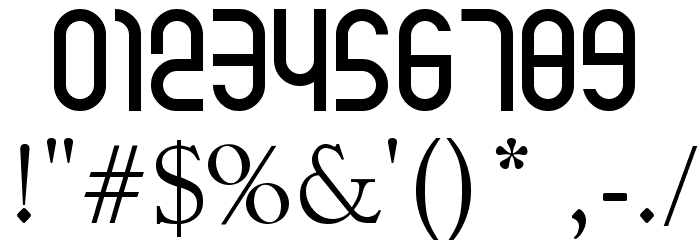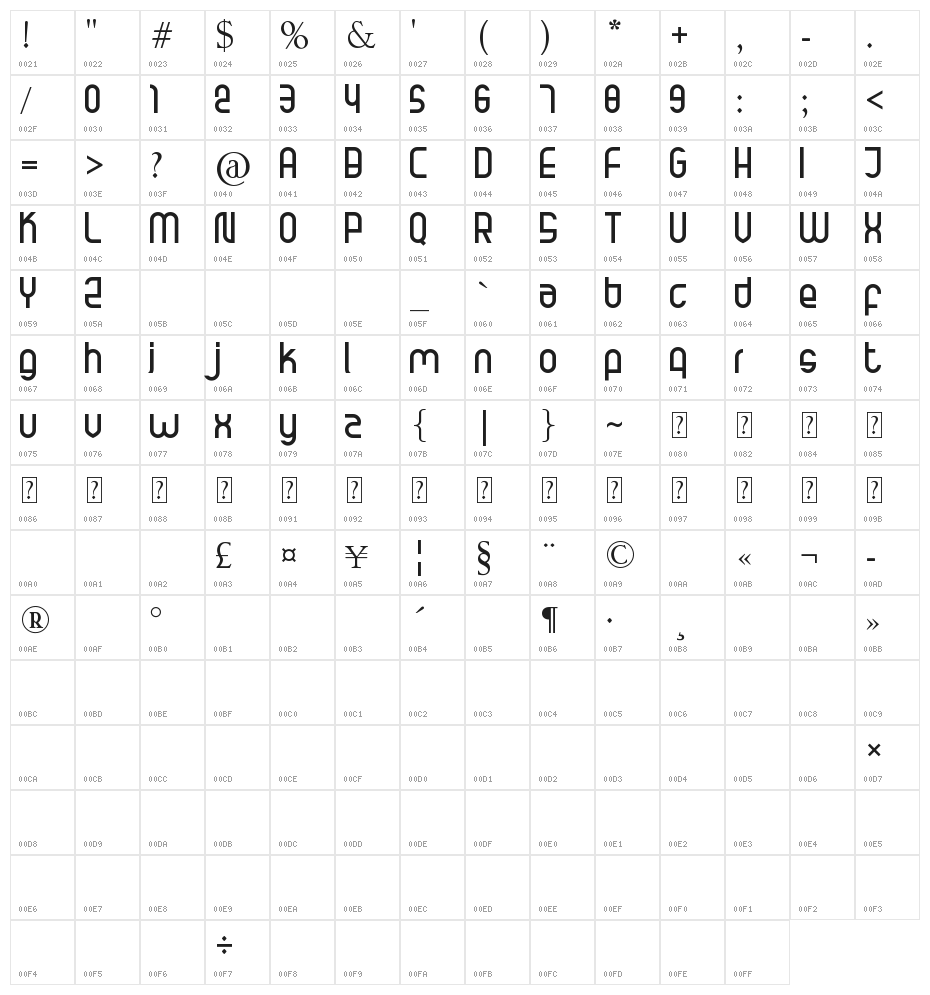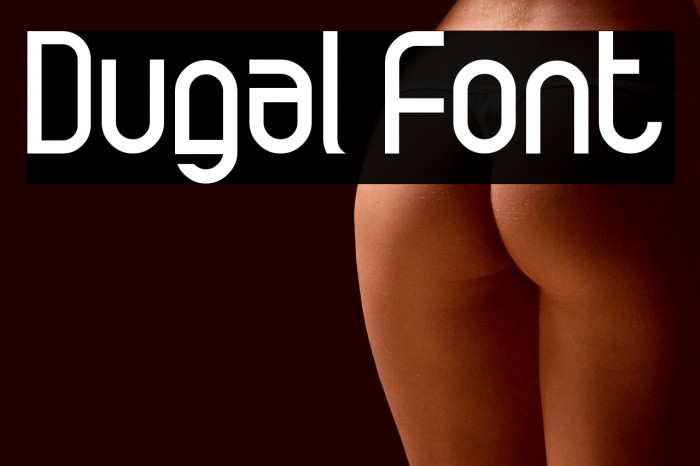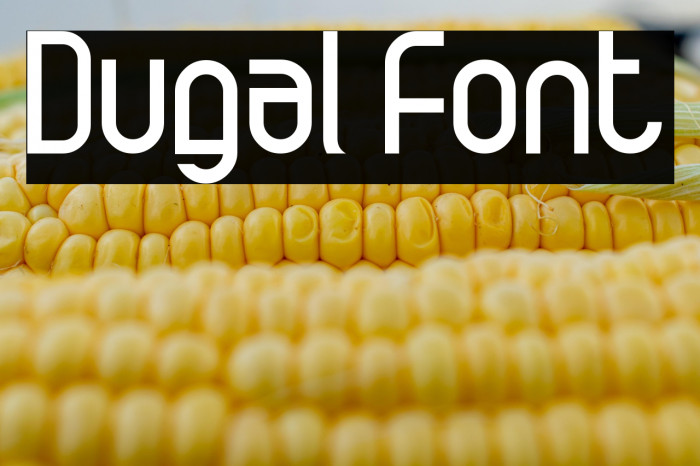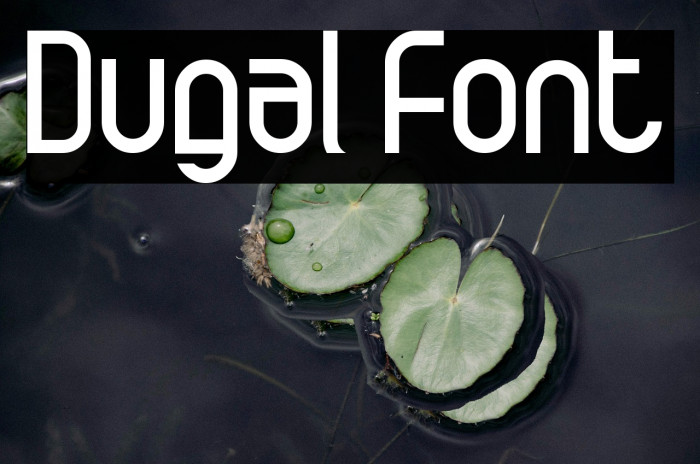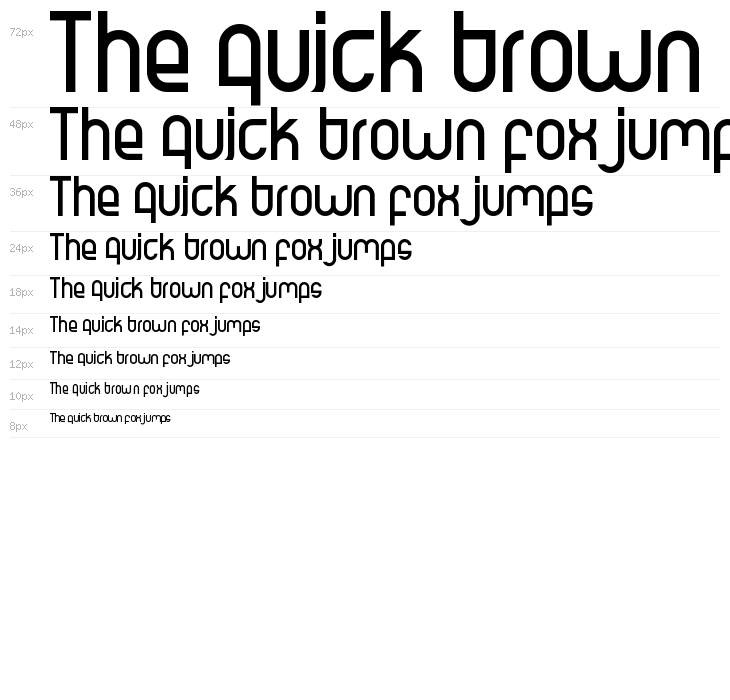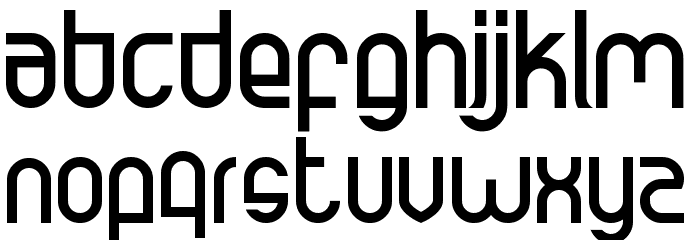
Dugal Font
Dugal Description
This font features a modern and geometric design with clean, rounded edges and consistent stroke widths. The uppercase letters are bold and structured, while the lowercase letters maintain a similar style with a slightly softer appearance. The numerals are distinct and align well with the overall aesthetic, providing a cohesive look. Special characters are designed to match the font's geometric nature, ensuring visual harmony across all elements. The font's uniformity and clarity make it highly legible, suitable for various applications where a contemporary and sleek appearance is desired.